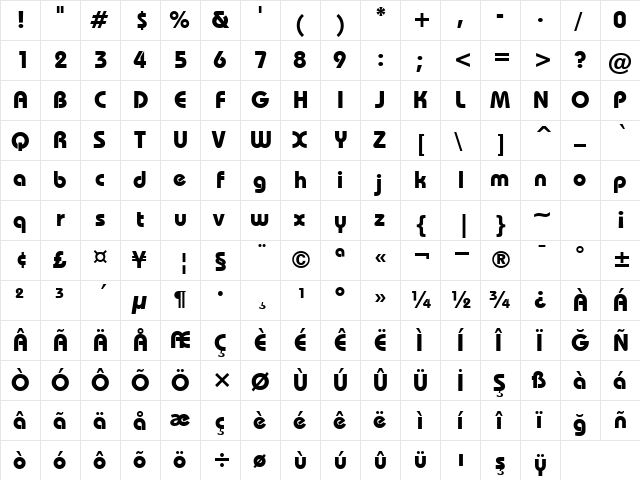
00222 Regular
00222 takes a measured approach to typography — its balanced proportions and neutral character make it a reliable workhorse for both digital and print work.